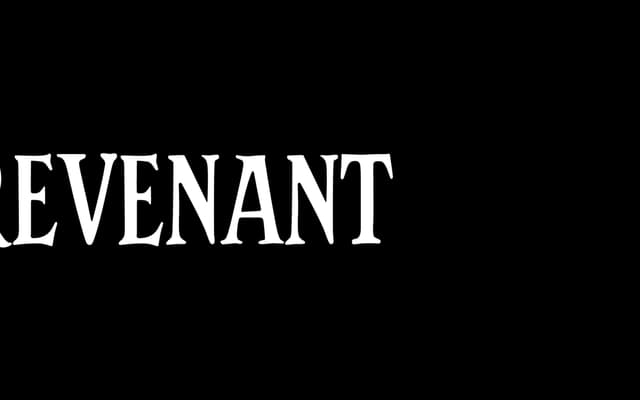
A condensed display serif with deliberately uneven lining and clumsy terminals that give it an unapologetic, handmade quality.
Revenant is built around intentional imperfection: its condensed forms carry uneven baselines and irregular terminals that give words set in it a specific, slightly raw voice. The design sits squarely in display territory, suited to editorial headlines or branding where a polished grotesque or clean serif would read as too composed. Available under a commercial licence add-on, it is priced accessibly for independent use.
Described explicitly as a condensed display serif with expressive, imperfect character terminals and uneven lining, placing it firmly in the display category rather than a workhorse serif tradition.